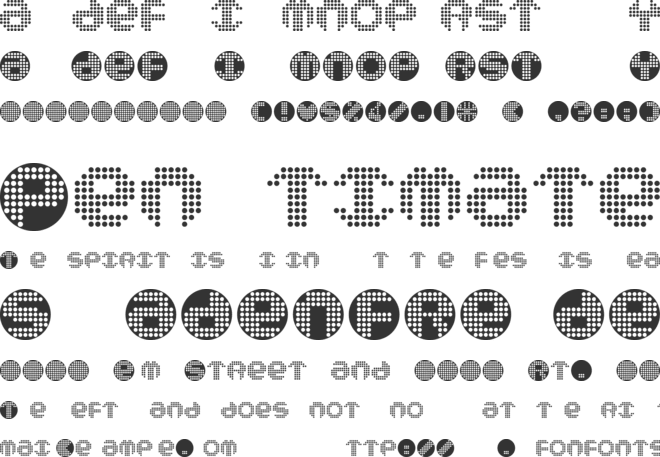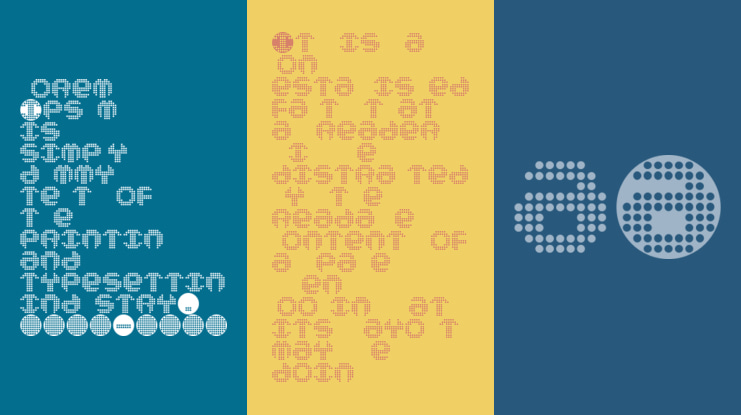
I had the idea for this my latest typeface after looking online for charities whom might benefit from 5% of the sale of my Charity Fonts, I found the European Respiratory Society and loved their dot lung design so I challenged myself to create a typeface based on a circle with a dot matrix consisting of only 69 dots, proved tricky but I think it worked, even SpideRaY looks cool!
Whilst creating the ampersand glyph as I was removing the dots, as the character became ghost-like, hence the final name FANTASMA, the grid background was obviously no brainer man! My original QR code I registered with @ http://kaywa.me/98F1U way back when SpideRaYsfoNtS domain was registered , the rest was added simply for fun...Get Ready Player One!